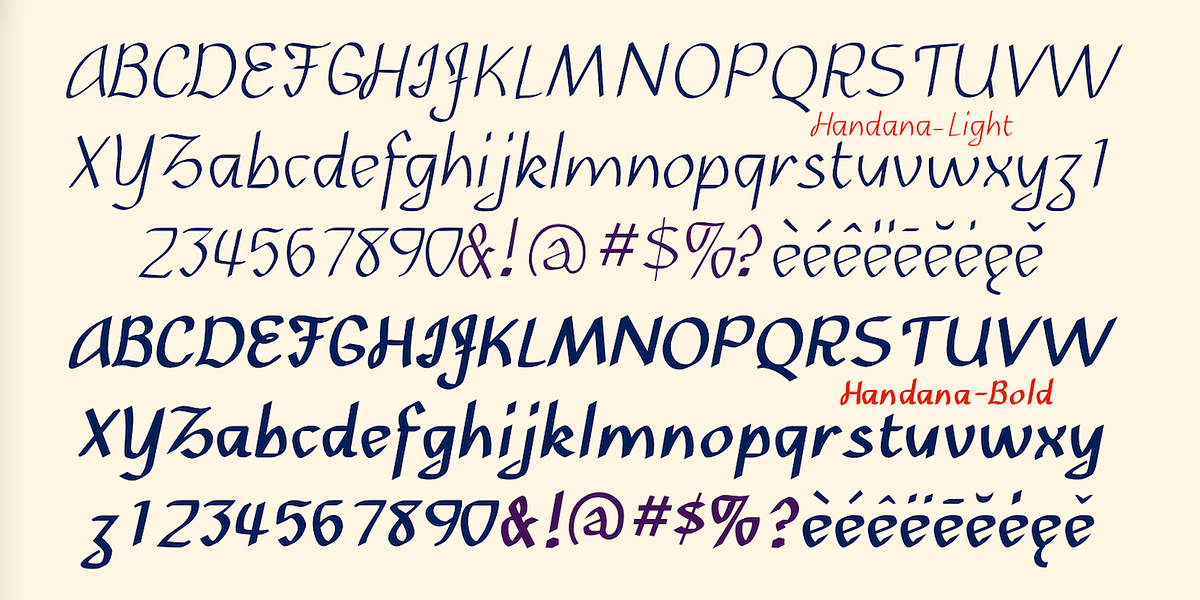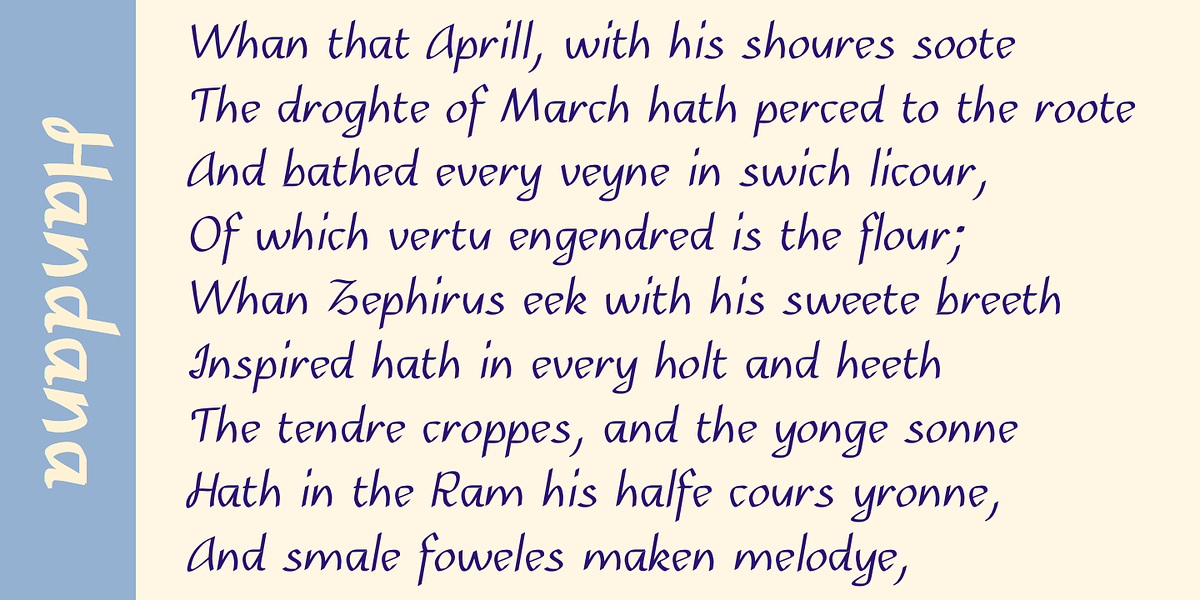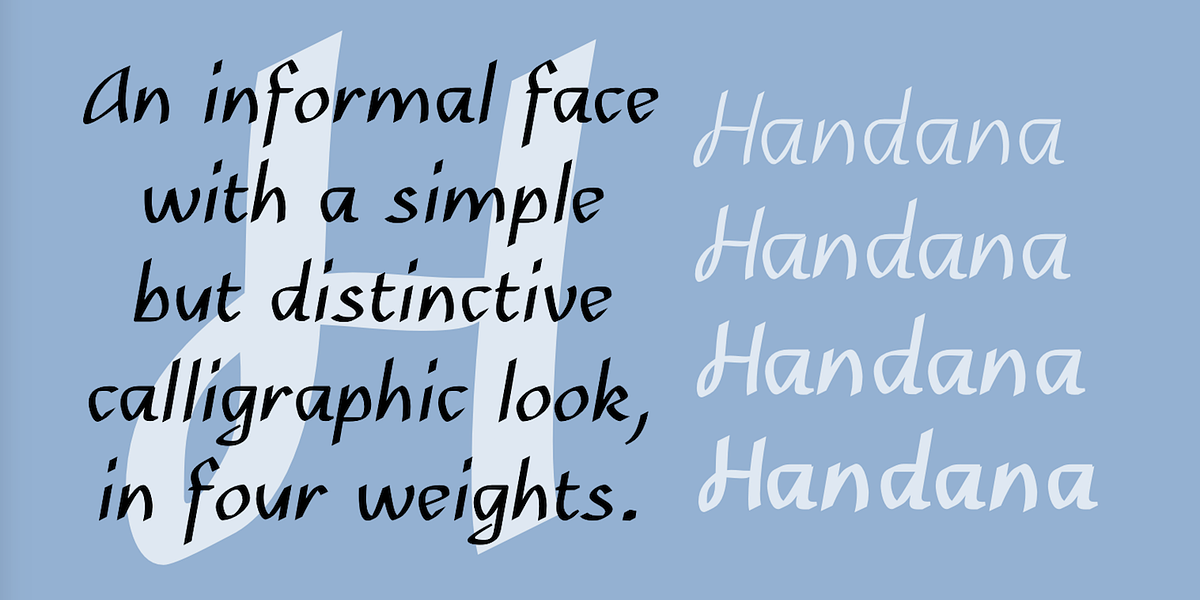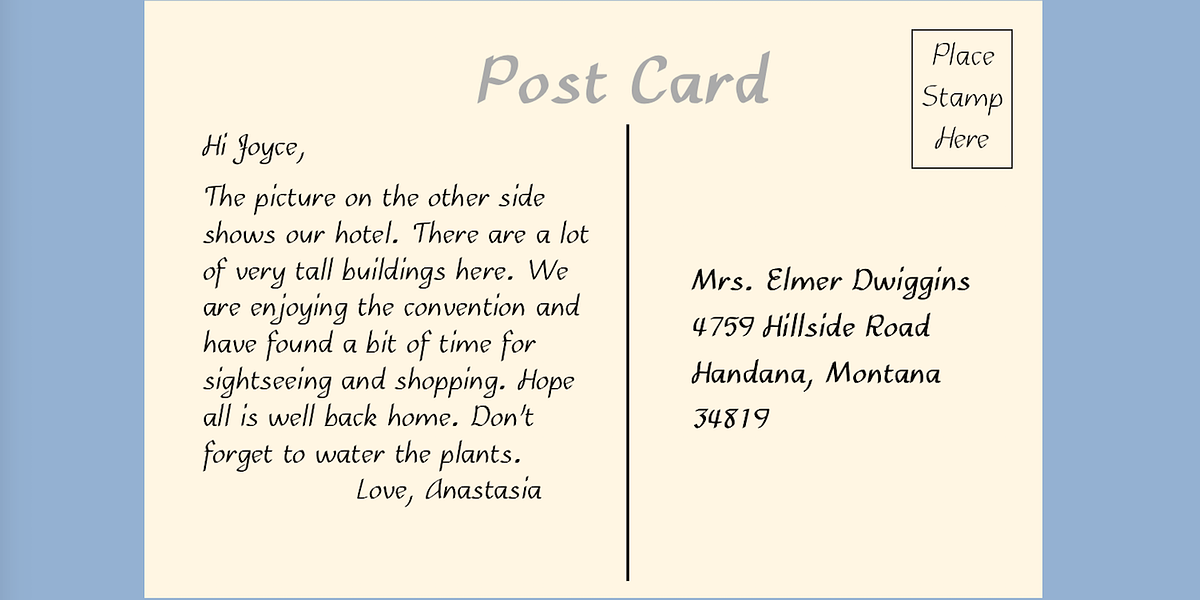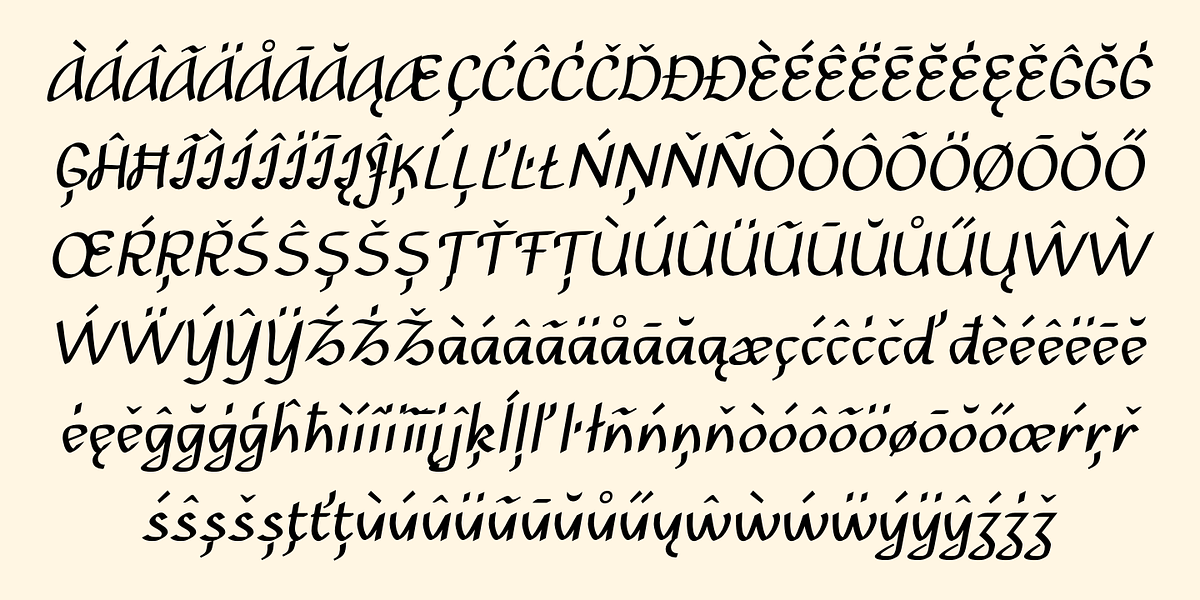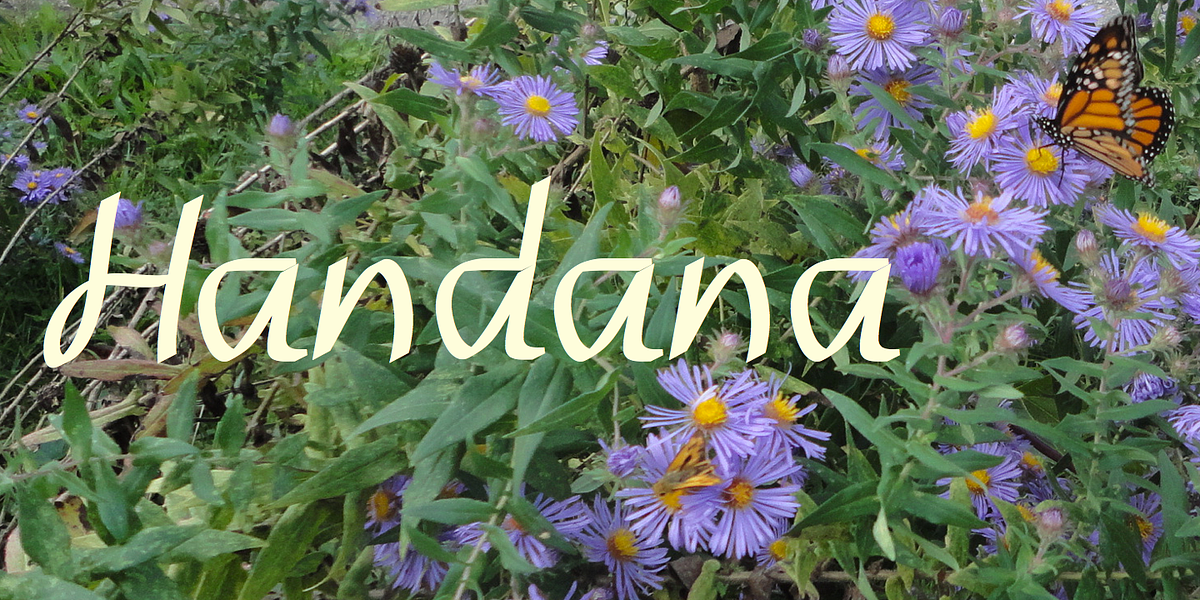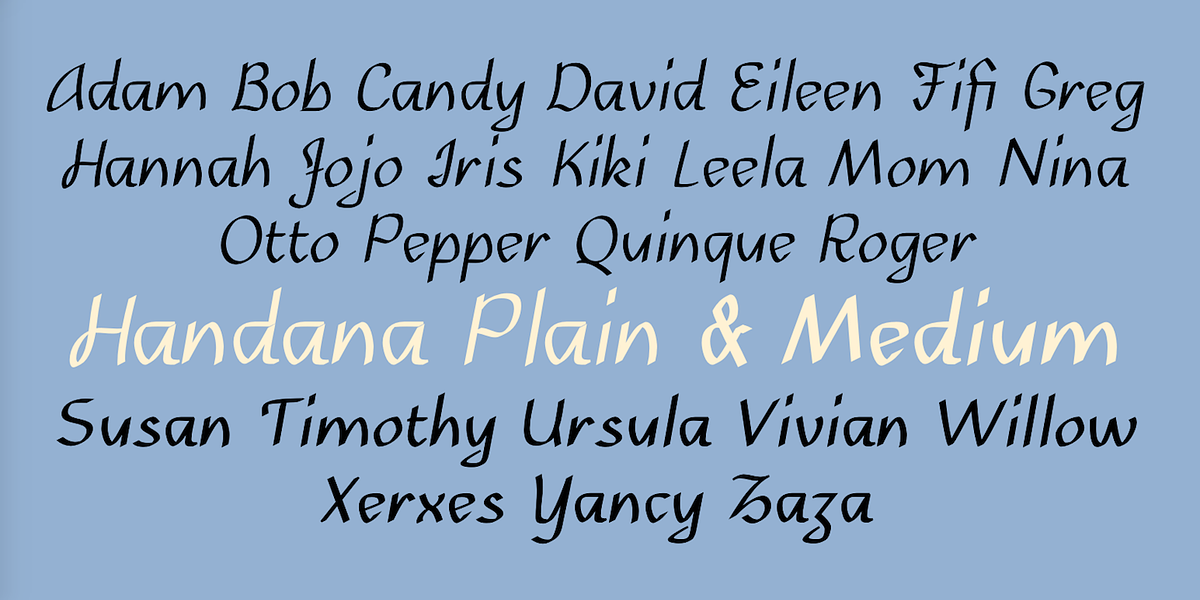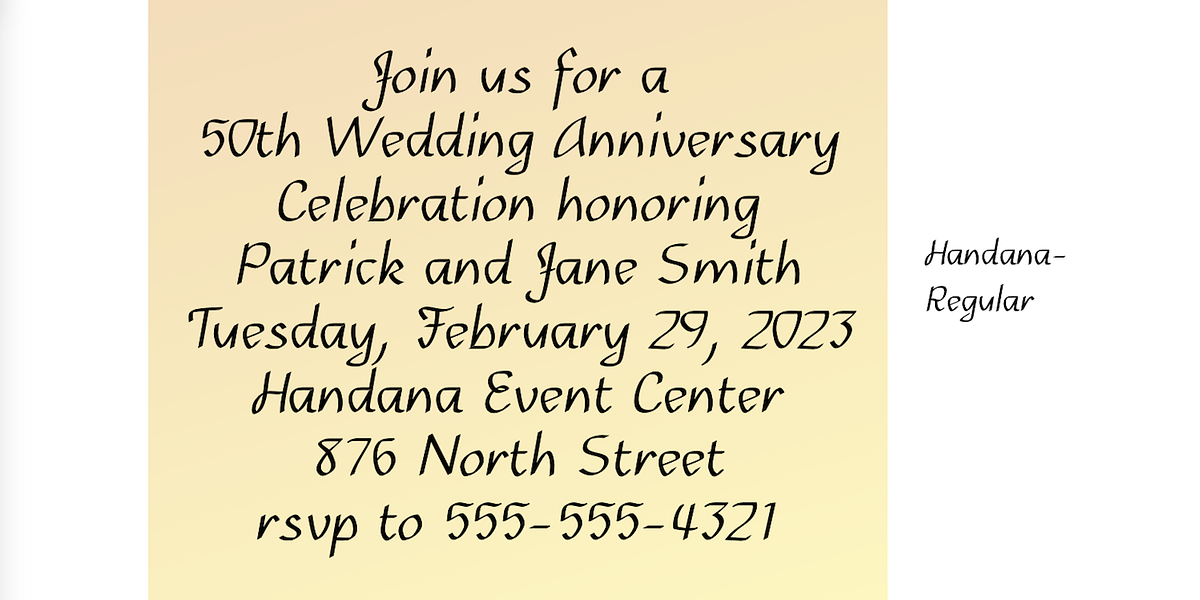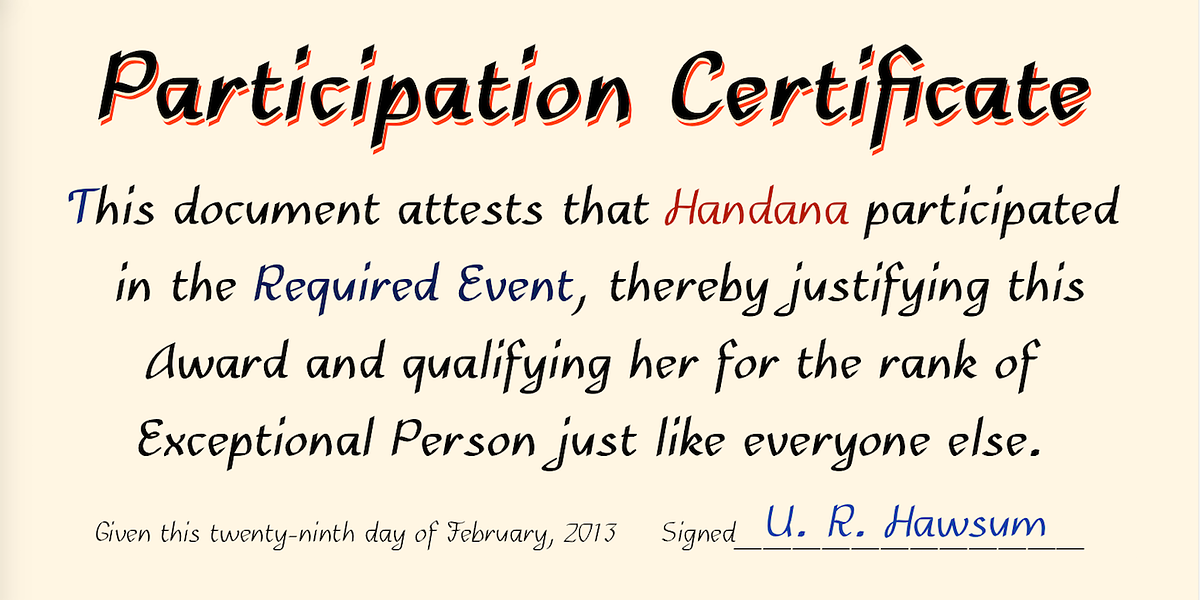
Handana
Handana is a casual script font designed to mimic the look of handwriting. Its cursive style lends itself well to personal projects and creative applications where a handwritten feel is desired.